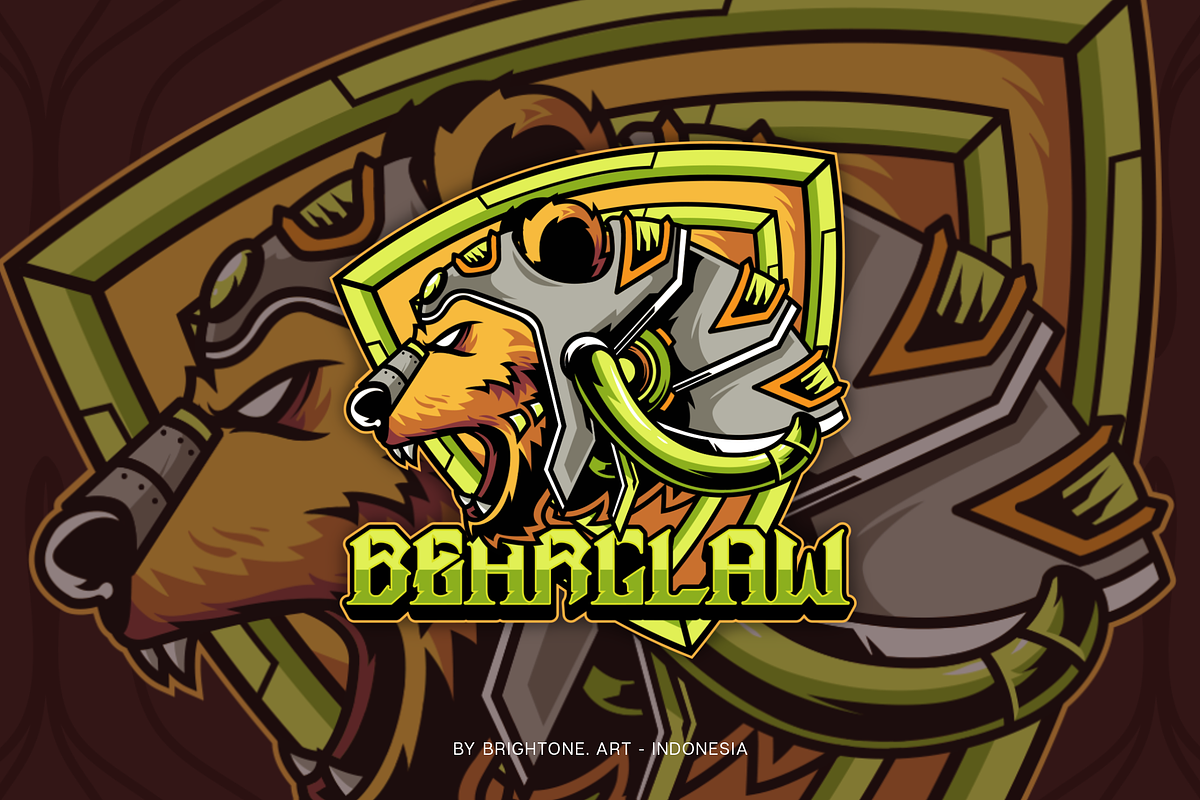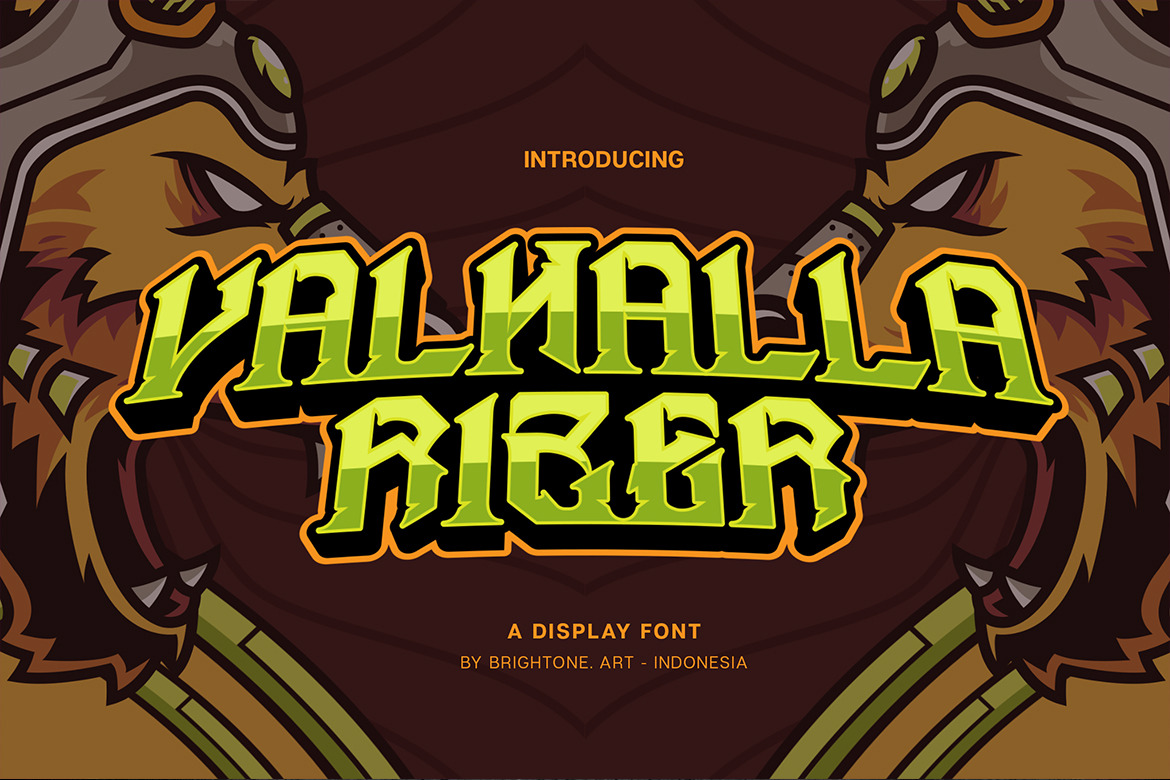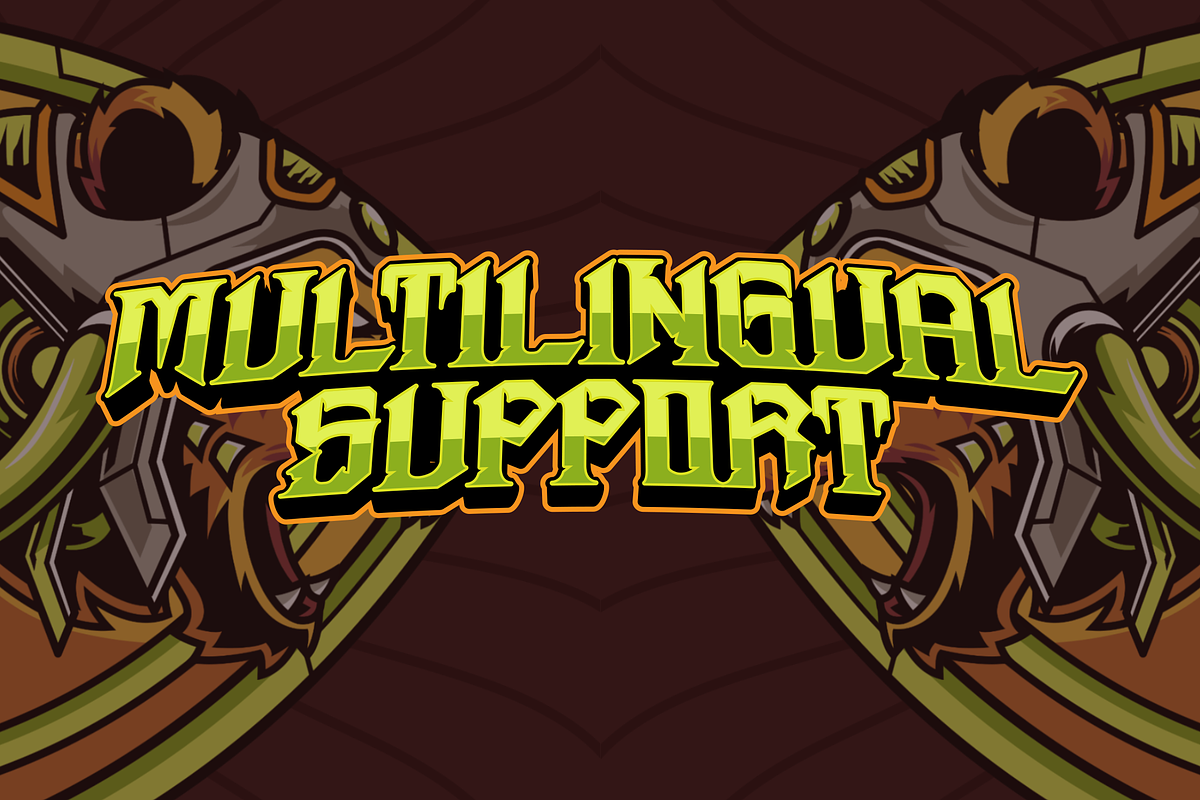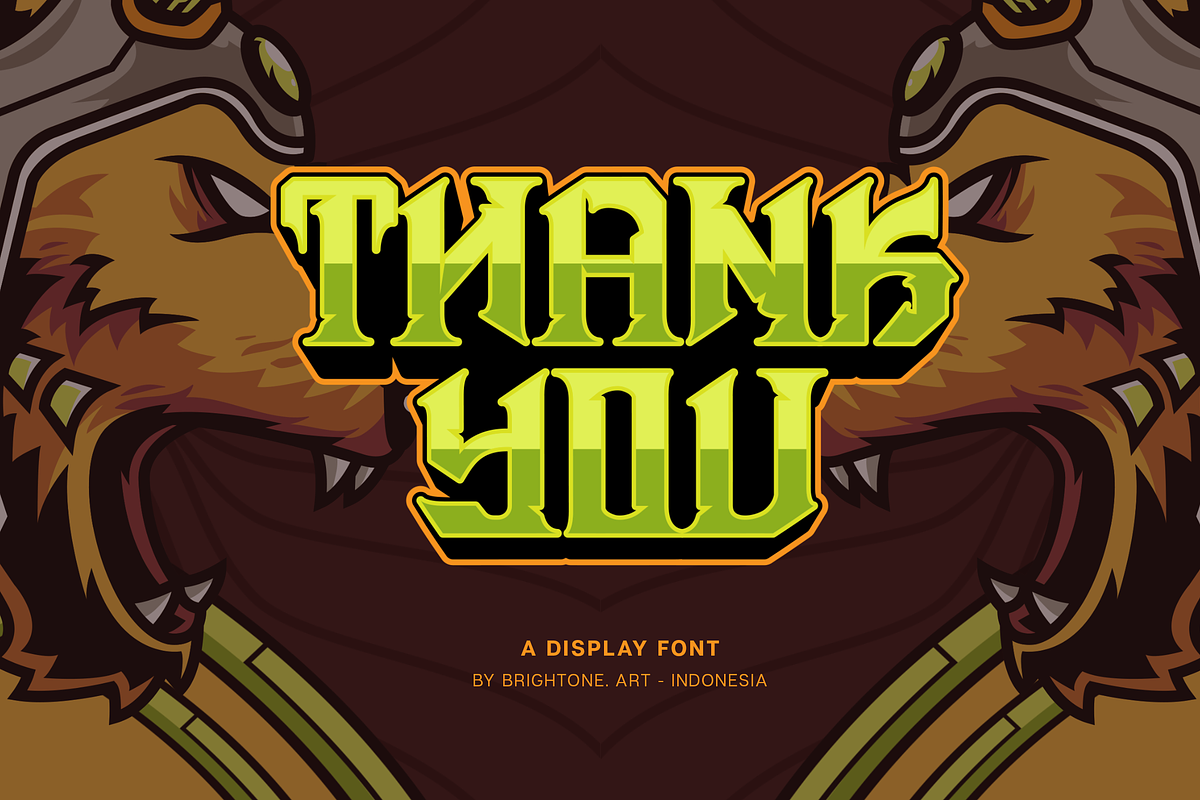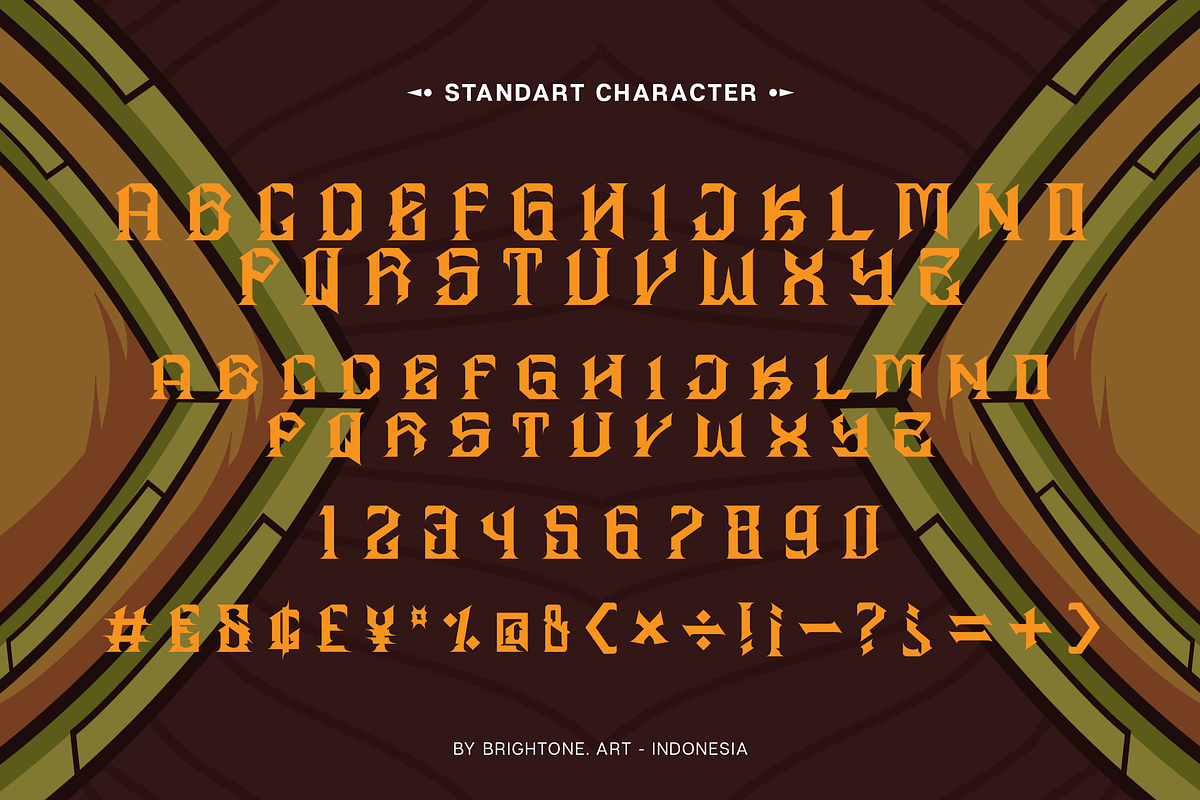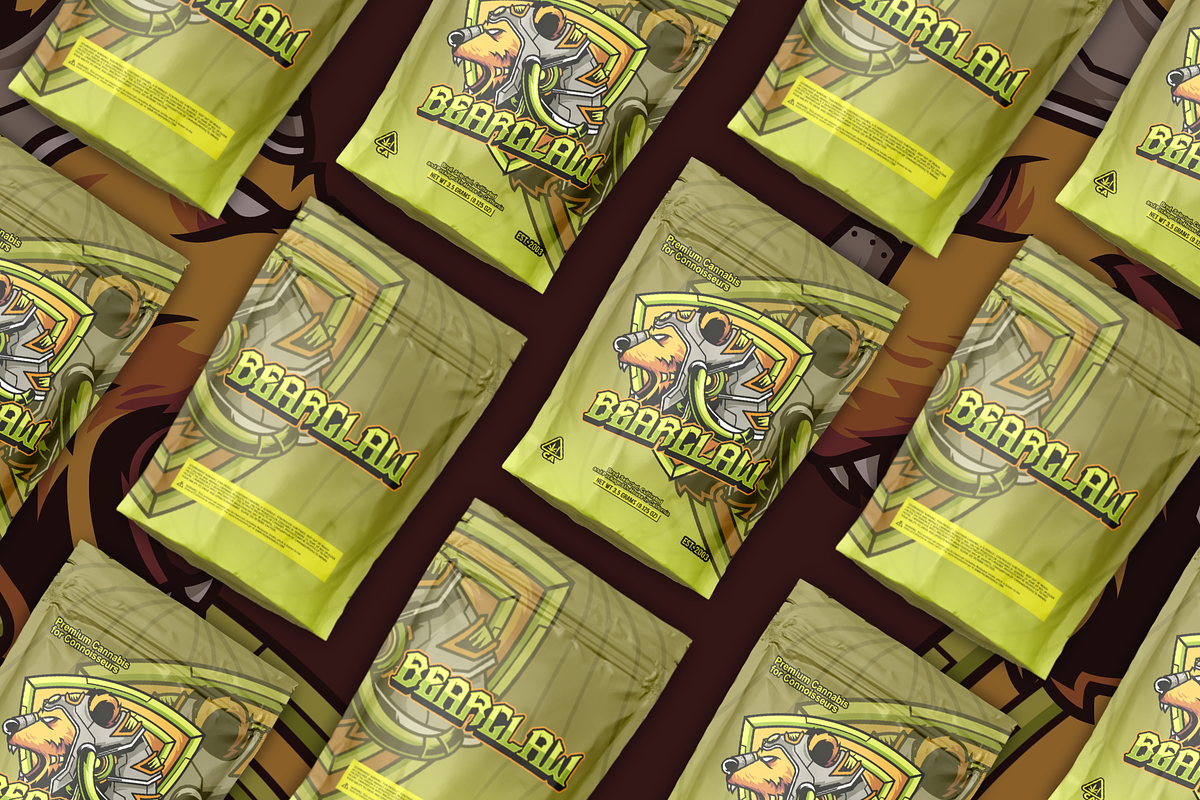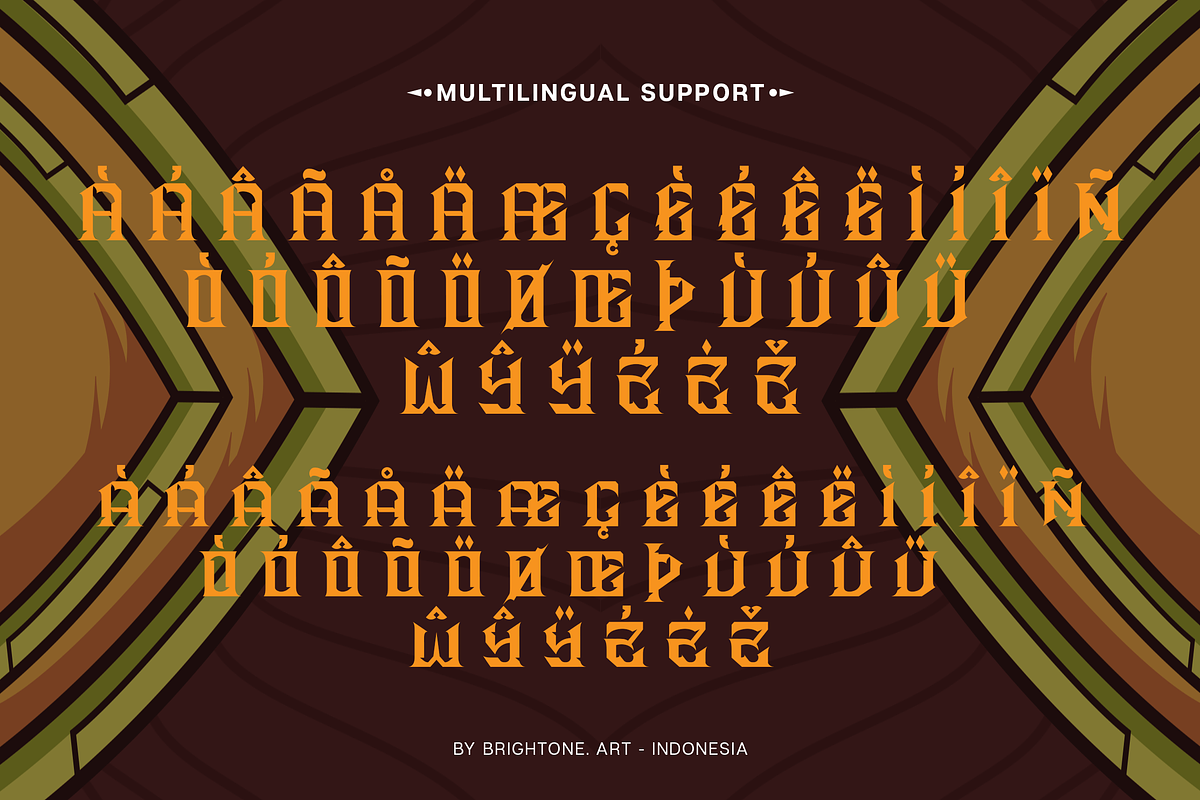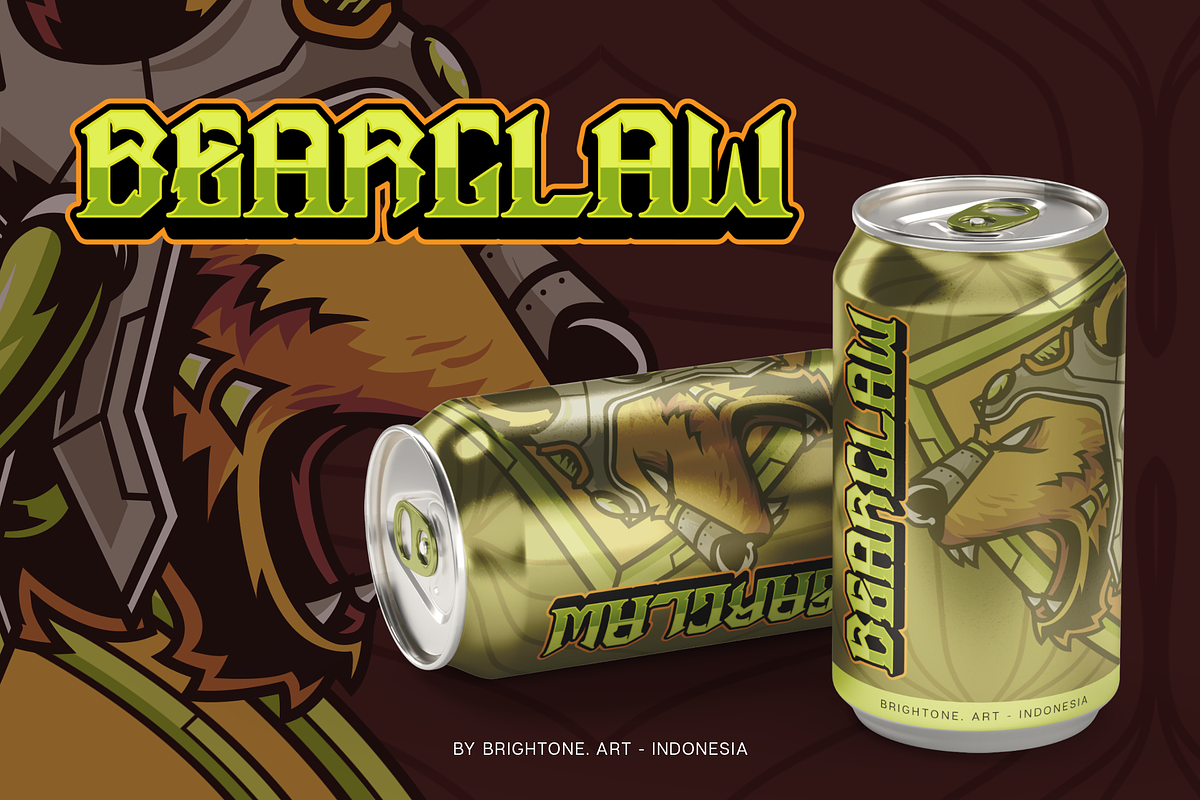
Valhalla Rizer - Esport Font
Valhalla Rizer is modern font with Esport style includes uppercase letters, numerals, a large range of punctuation and multilingual support. modern font with esport style for your logo lettering, shirt design, logo, label, packaging, sticker, branding etc